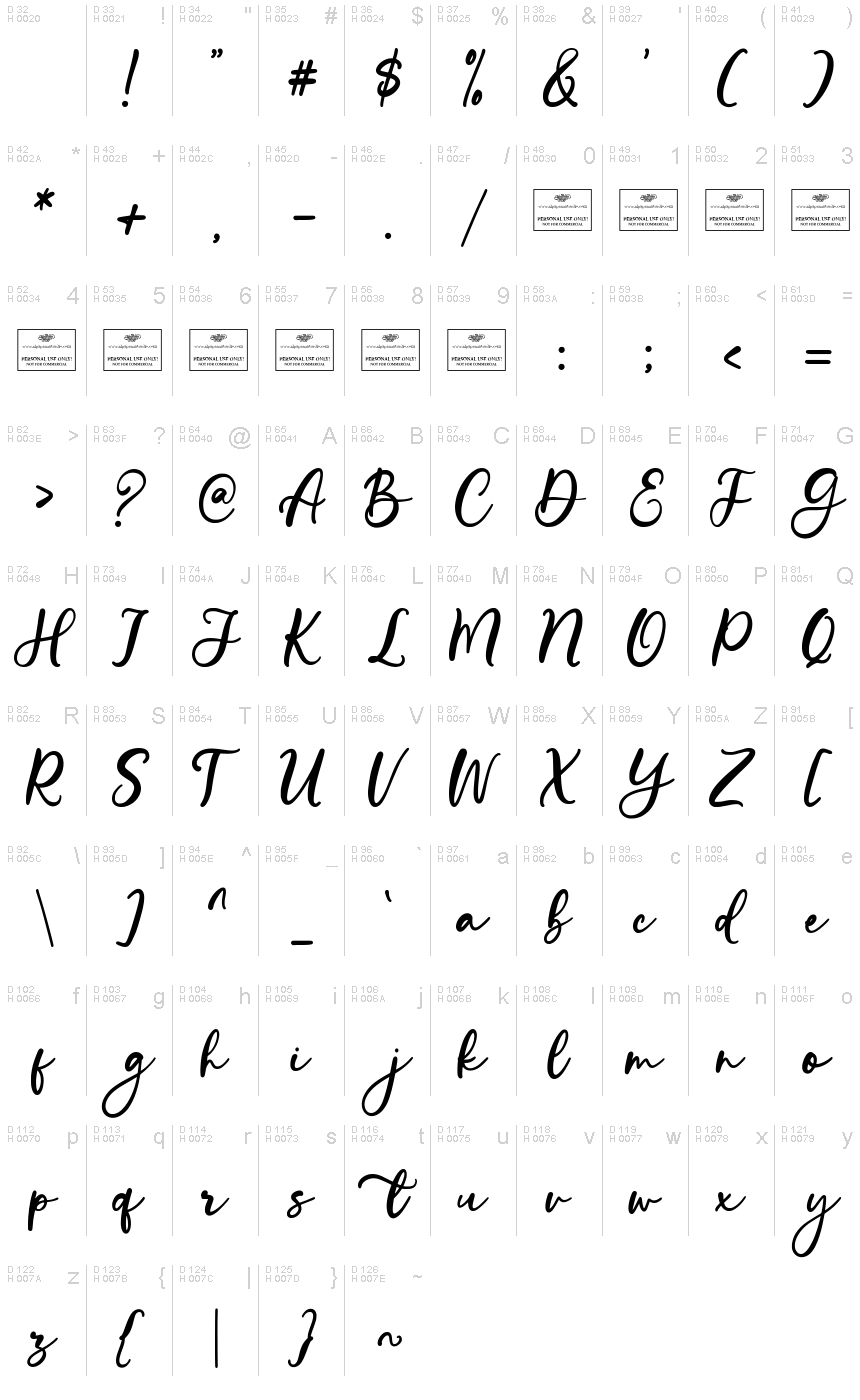
Haland
Haland, crafted by the creative minds at Alpaprana Studio, captures the essence of personal touch in its handwritten style. Each stroke conveys warmth and individuality, making it a font that effortlessly adds character to any project. The fluid continuity of its lines suggests elegance and a timeless charm that is both aesthetically appealing and emotionally resonant.
Versatile in its nature, Haland is well-suited for invitations, branding, and advertising campaigns seeking a humanistic approach. Its distinct yet unassuming appearance ensures that it can adapt to various contexts while maintaining its unique flair. This handwritten font promises to infuse your creative work with an authentic handcrafted feel that stands out in today's digital age.